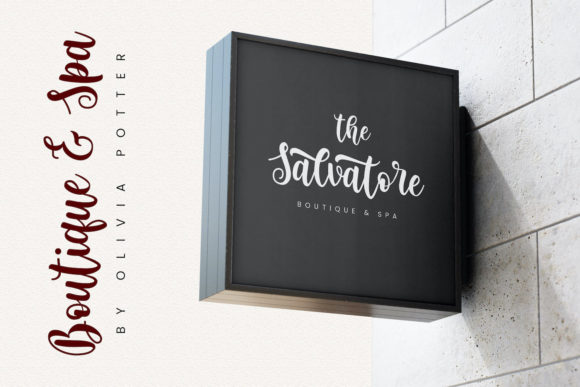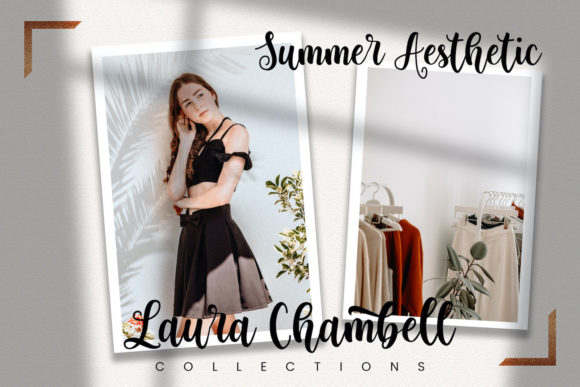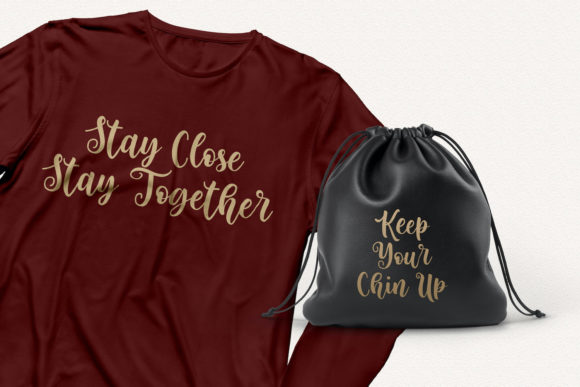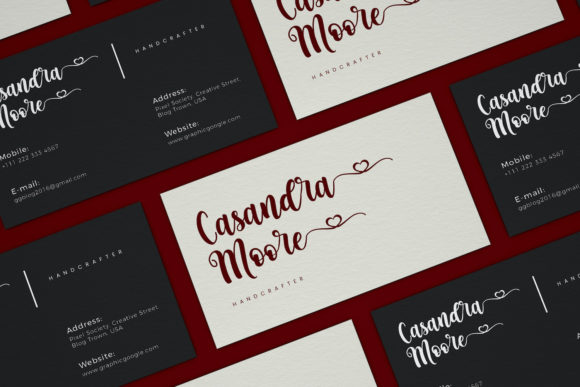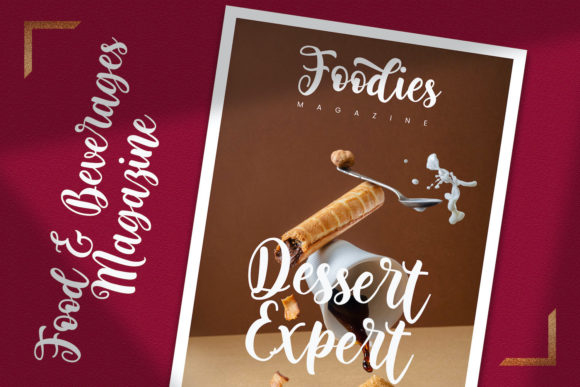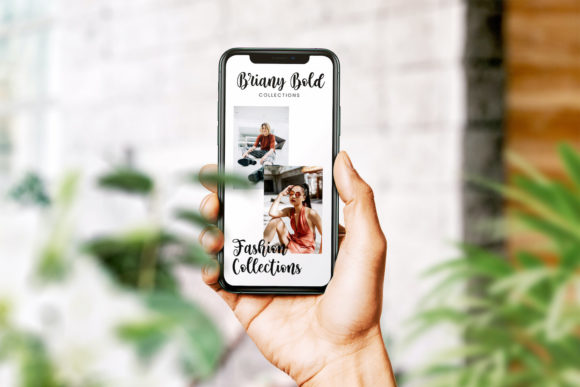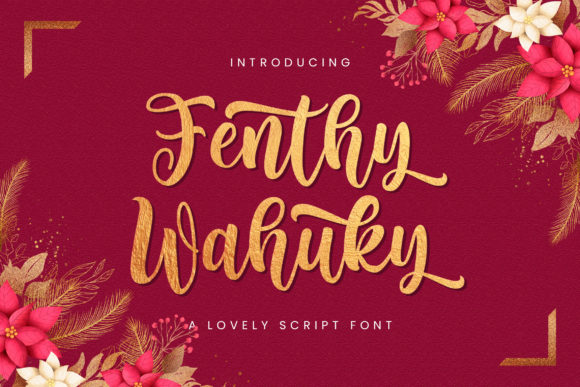
Fenthy Wahuky Font: Elevate Your Designs with Elegance and Personality
In the world of typography, a font can make or break a design. It’s the perfect blend of style, elegance, and personality that can transform a simple project into a masterpiece. If you’re on the hunt for a font that exudes sophistication, charm, and uniqueness, look no further than the Fenthy Wahuky Font. This exquisite handwritten font is designed to take your designs to the highest levels, and we’re excited to dive into its features and benefits.
The Essence of Fenthy Wahuky Font
Fenthy Wahuky is a beautiful, handwritten font that boasts a distinctive and elegant style. Its unique charm lies in its ability to convey a sense of warmth, friendliness, and approachability, making it perfect for a wide range of design projects. Whether you’re working on a branding campaign, packaging design, or social media graphics, this font is sure to leave a lasting impression.
What Sets Fenthy Wahuky Apart
So, what makes Fenthy Wahuky stand out from the crowd? Here are a few features that make this font truly special:
- Handwritten with love: Fenthy Wahuky is a carefully crafted handwritten font that showcases a high level of attention to detail and precision.
- Heart and Vintage Swashes: This font comes with an array of heart and vintage swashes that can be used to add a touch of elegance and whimsy to your designs.
With Fenthy Wahuky, the design possibilities are endless. Here are a few ideas to get you started:
- Wedding and Event Design: Use Fenthy Wahuky to create stunning wedding invitations, save-the-date cards, and event branding materials.
- Branding and Packaging: This font is perfect for crafting unique brand identities, product labels, and packaging designs that stand out on store shelves.
- Social Media Graphics: Add a touch of personality to your social media graphics, blog posts, and email newsletters with Fenthy Wahuky’s elegant and playful style.
Why Choose Fenthy Wahuky?
With so many fonts available, why should you choose Fenthy Wahuky? Here are a few compelling reasons:
- Unique and Exclusive: Fenthy Wahuky is a one-of-a-kind font that will set your designs apart from the competition.
- Elegant and Versatile: This font is versatile enough to be used in a wide range of design projects, from formal to informal.
In conclusion, Fenthy Wahuky Font is an exquisite handwritten font that offers a unique blend of elegance, personality, and versatility. With its heart and vintage swashes, PUA encoding, and endless design possibilities, this font is sure to become a staple in your design library. Whether you’re a designer, crafter, or DIY enthusiast, Fenthy Wahuky is the perfect choice for anyone looking to elevate their designs to new heights.